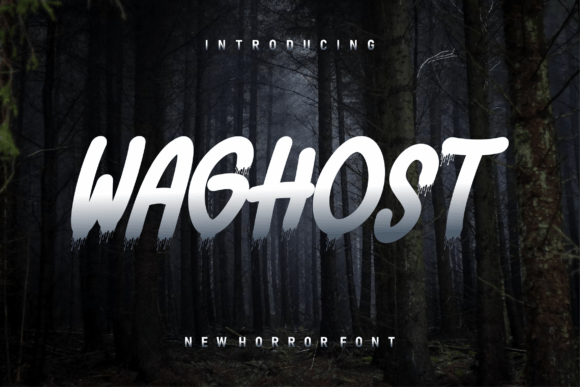
Adorn your designs with the distinctive Waghost font, a display masterpiece crafted by prayoga_std. This font exudes boldness and modernity, making it the perfect choice for those seeking a unique touch in their creative projects.
Immerse yourself in the versatility of Waghost, a font that effortlessly adapts to a myriad of design concepts. Whether you're crafting elegant signatures, personalizing stationery, or designing captivating logos, Waghost rises to the occasion, adding a touch of sophistication and charm to your creations.
Picture your wedding invitations adorned with the graceful curves of Waghost, conveying the heartfelt emotions of your special day. Transform your typography quotes into captivating artworks, each letter a testament to the beauty of expression. Envision magazine and book covers adorned with Waghost, their titles leaping off the page with an allure that draws readers in.
Unleash your creativity with Waghost, a font that complements website headers with its bold presence, adding a dynamic edge to your online presence. Elevate your branding efforts with a logo that embodies the essence of your company, rendered in the striking lines of Waghost. Enhance your packaging designs with a font that speaks volumes, capturing the attention of customers and leaving a lasting impression.
Waghost beckons you to explore its boundless potential, a font that empowers you to bring your creative visions to life. Its versatility transcends genres, making it an indispensable tool for designers, artists, and creative professionals seeking a font that ignites their imagination.